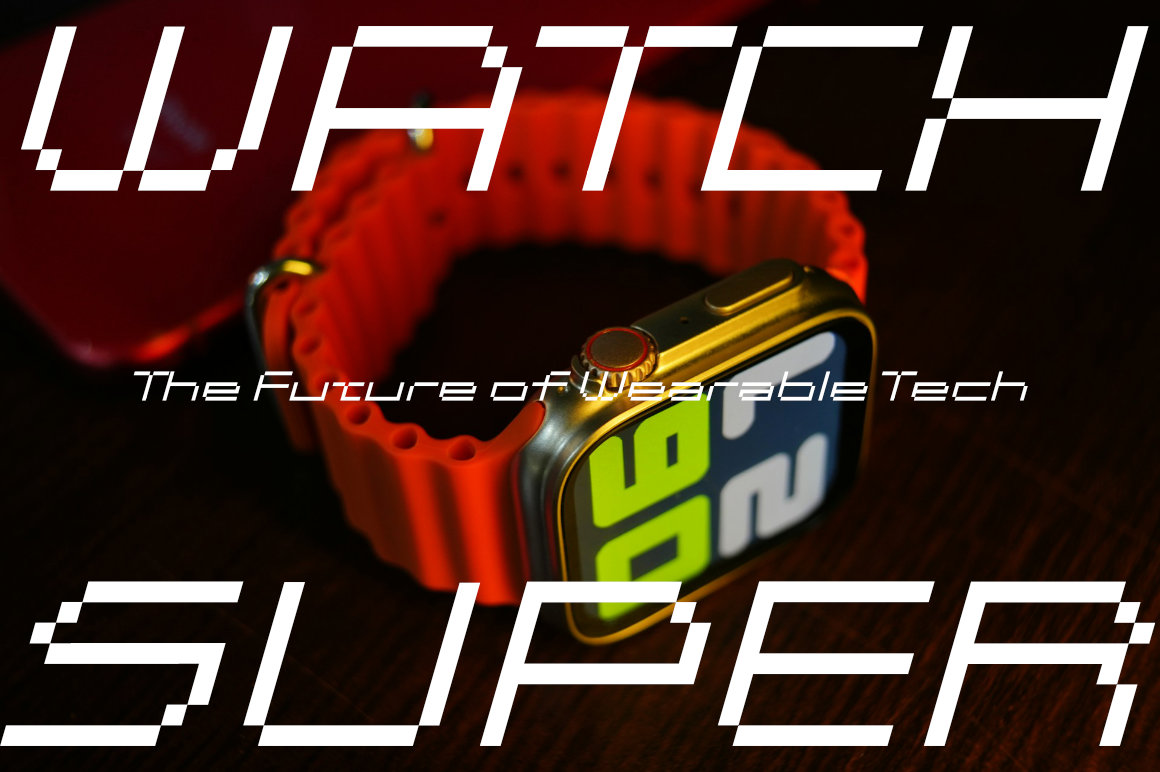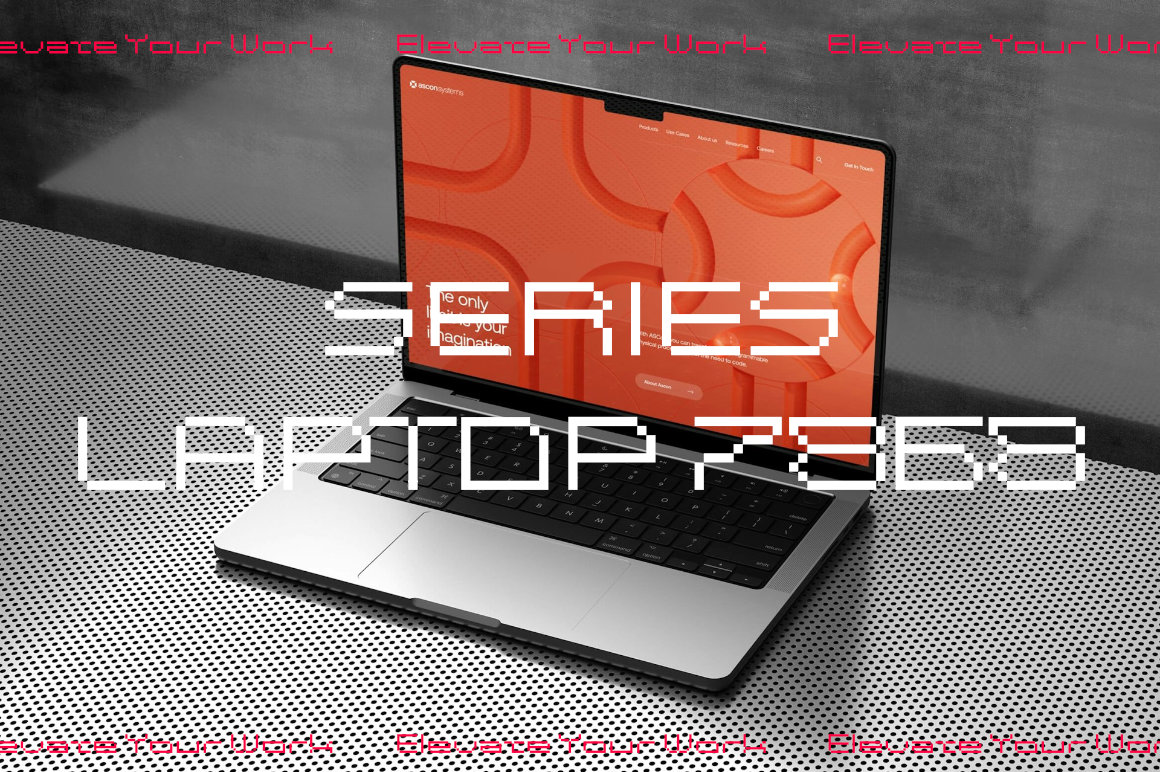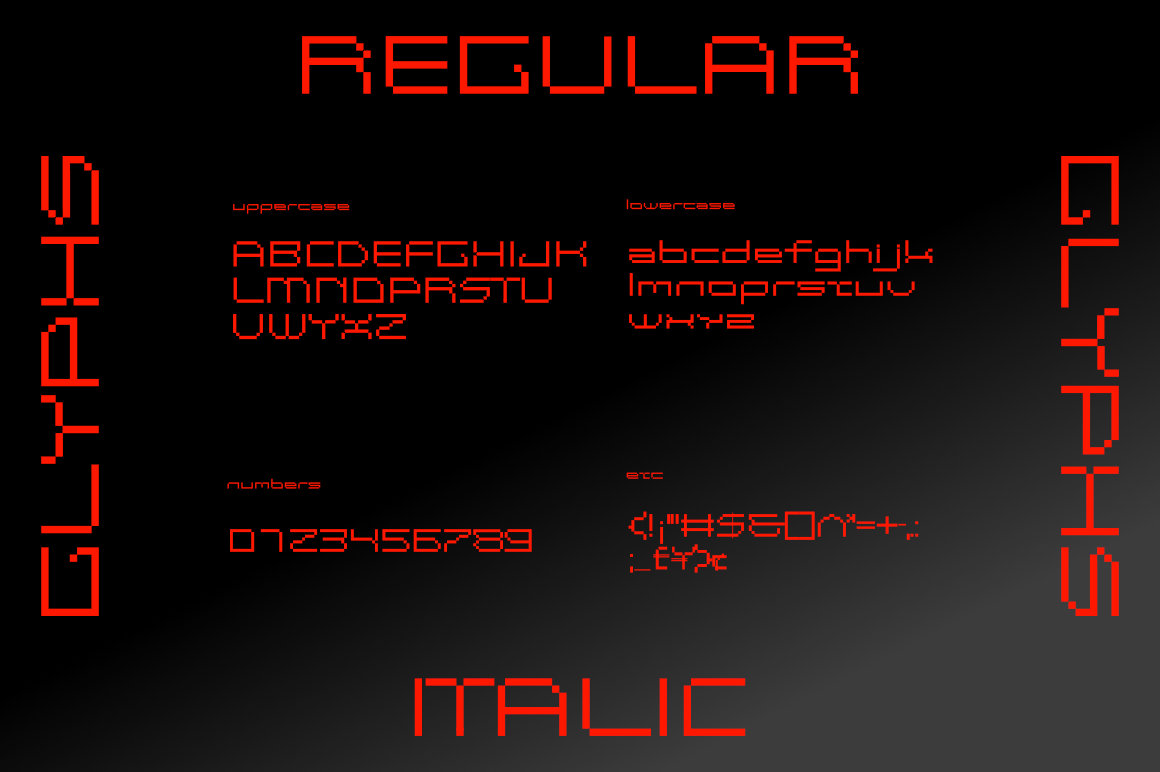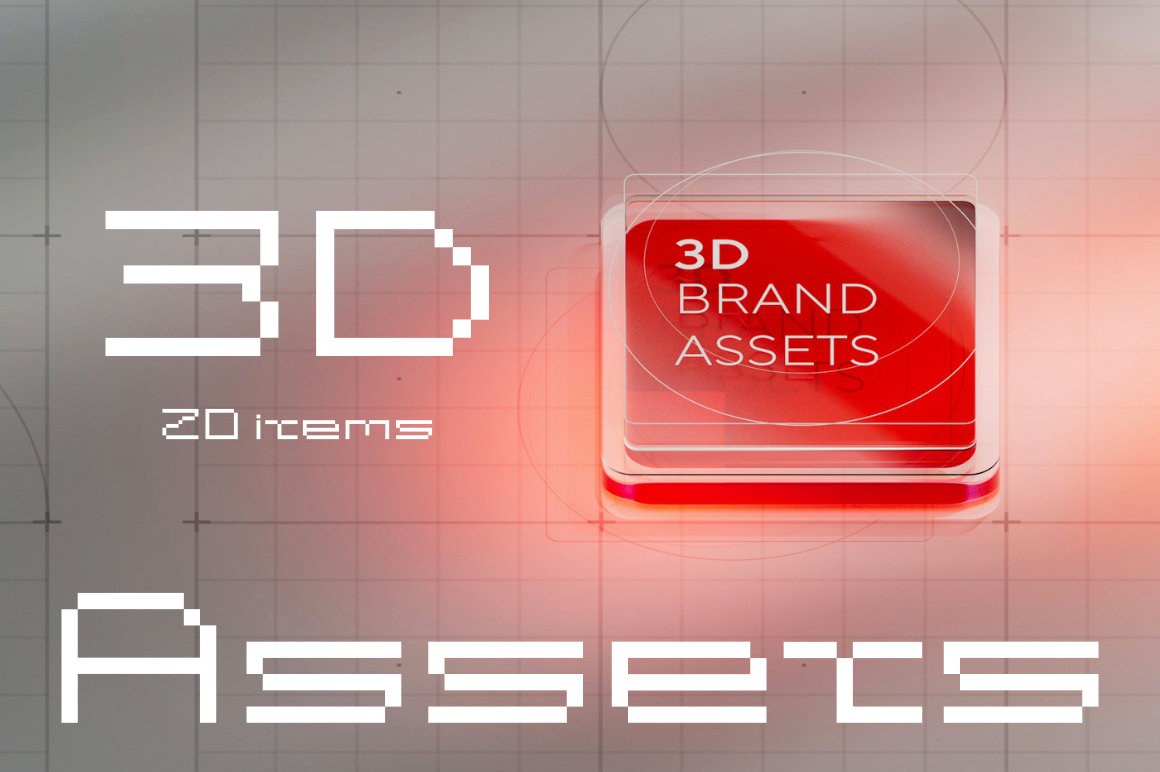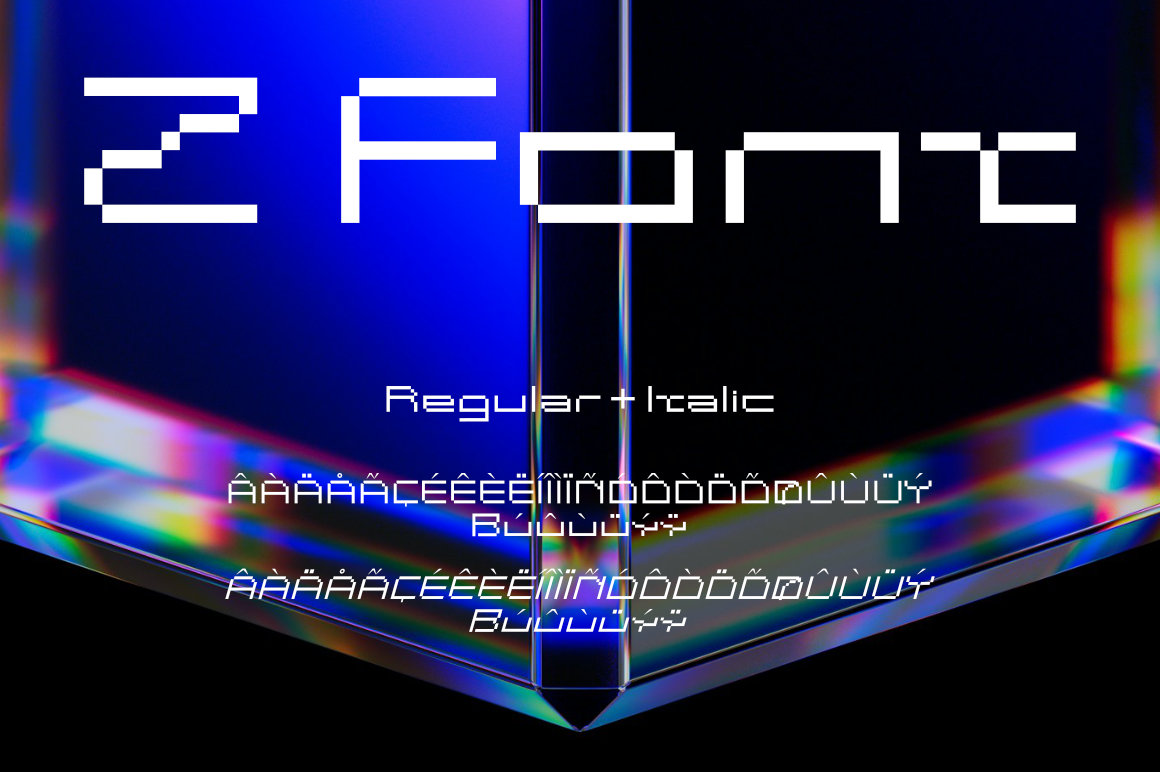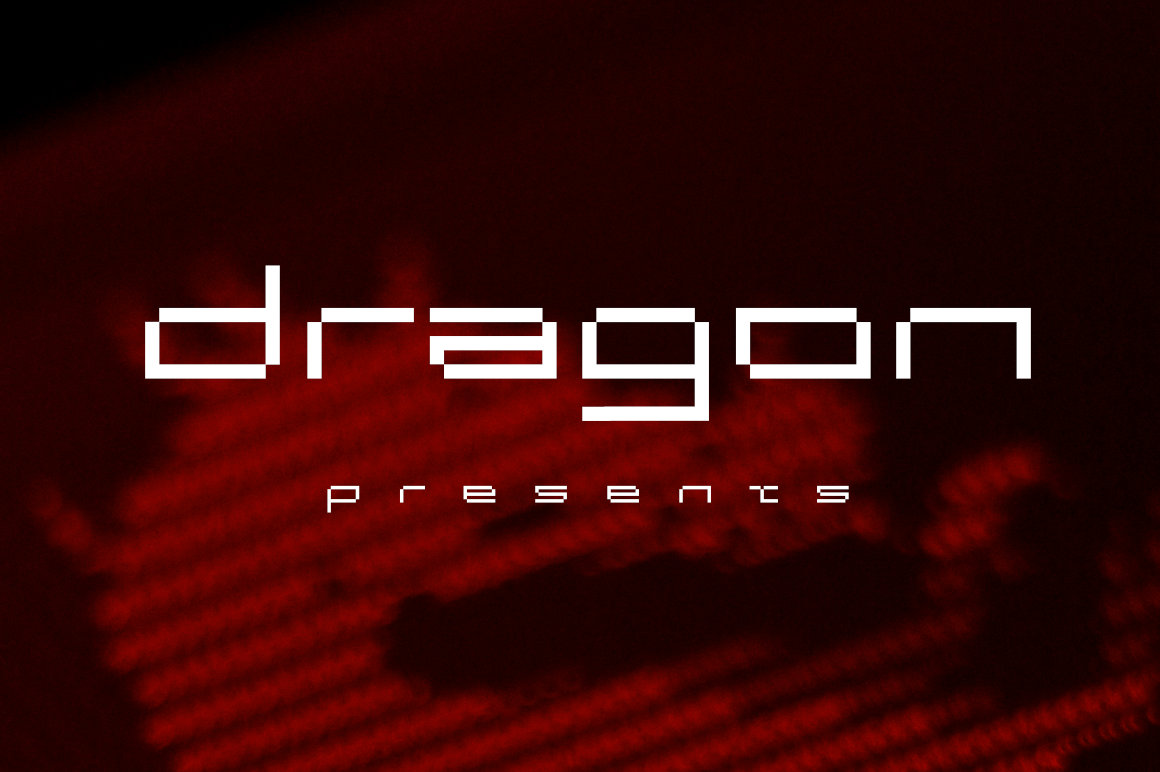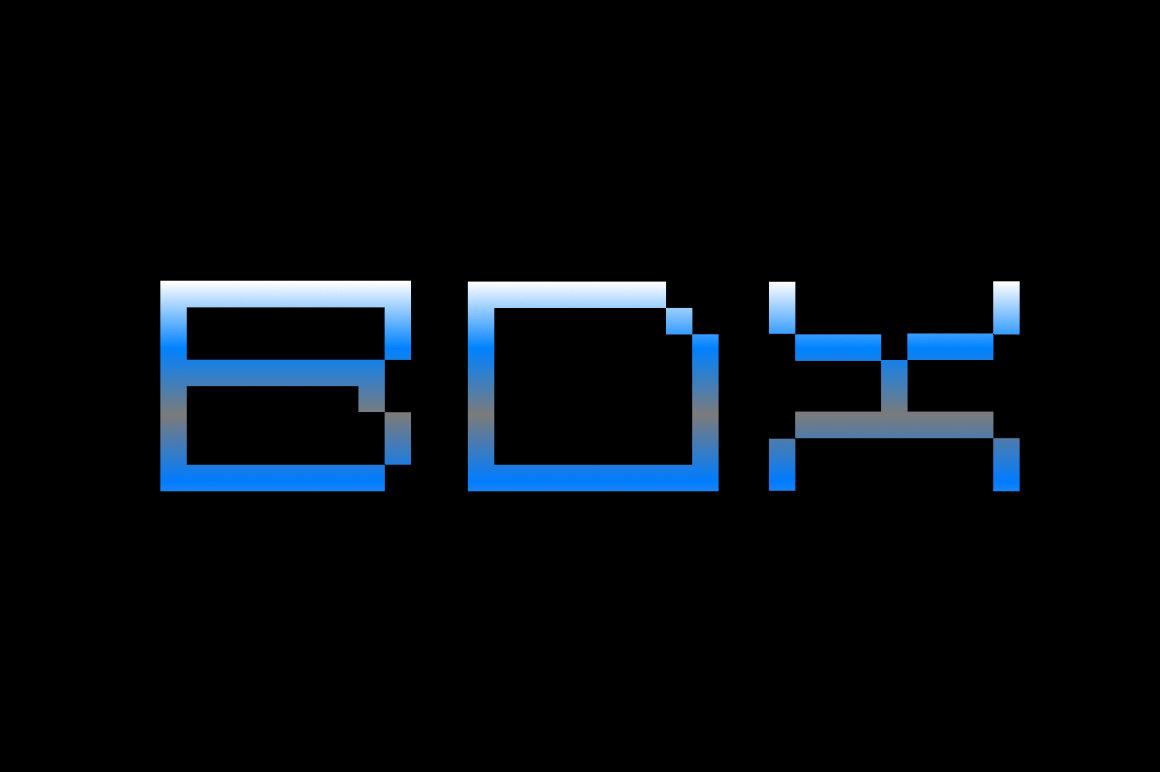
Groutpix F Torch Font
Modern fonts are the heartbeat of contemporary design. They're sleek, minimalist, and effortlessly stylish. From bold sans-serifs that demand attention to delicate scripts that whisper elegance, modern fonts have the power to transform any design into a work of art. They're versatile, adaptable, and always on-trend.
Ads, Branding, Title and much more